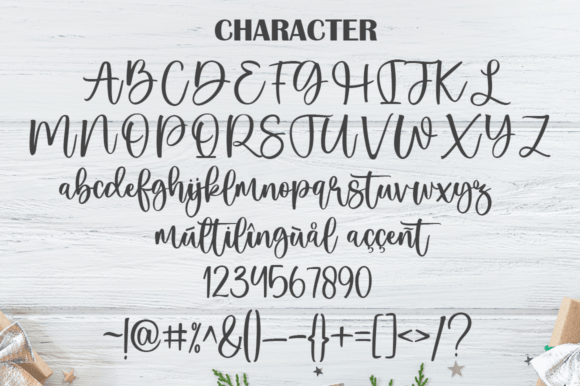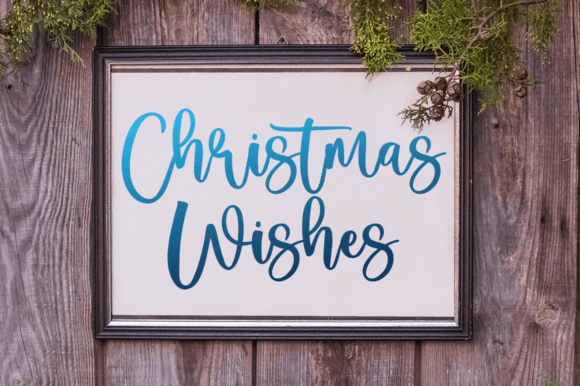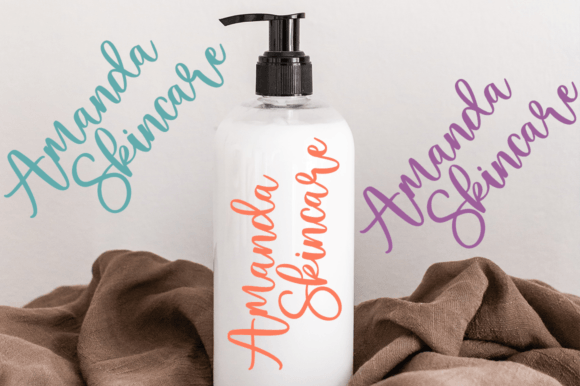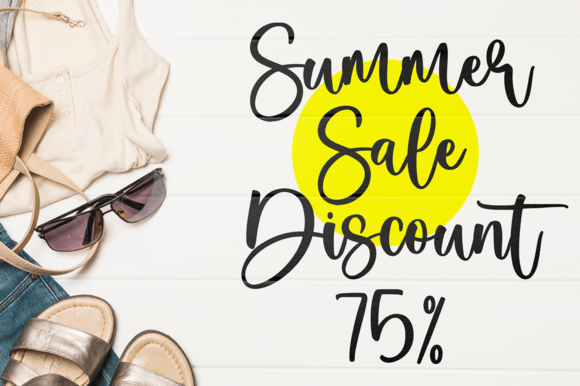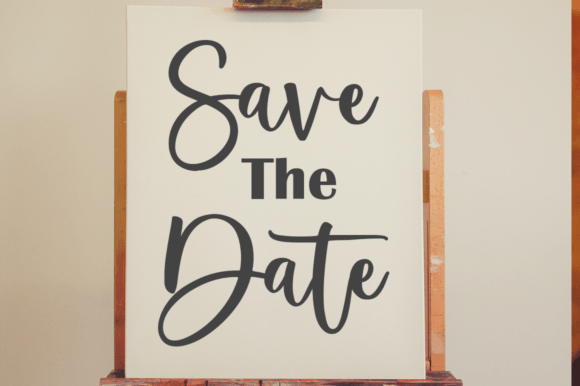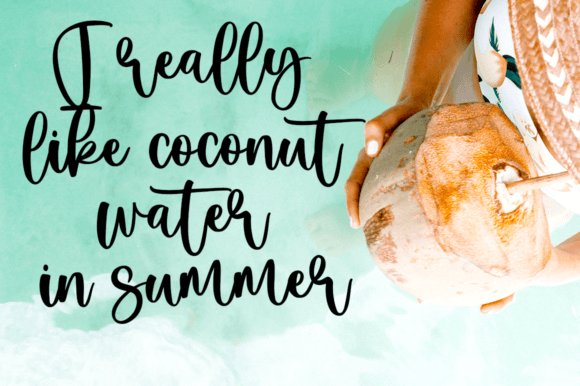
Introduction to Palm Bali Font Font
Fonts play a crucial role in design, and the Palm Bali Font font is a typeface that brings both character and versatility to any project. Whether you’re working on a branding project, a website, or a print design, the Palm Bali Font font offers a unique style that can elevate your work.
Palm Bali.
A very fun yet elegant script font with lots of energy, it lets you create beautiful handcrafted typography in an instant With extra curves & twists, Palm Bali is guaranteed to make your text stand out – perfect for logos, printed quotes, invitations, cards, product packaging, headers and anything else you can imagine.
Key Features of Palm Bali Font Font
Why Choose Palm Bali Font Font?
The Palm Bali Font font is more than just a typeface – it’s a design tool that helps you communicate your message with style and clarity. Its unique character set and versatile design make it suitable for a wide range of applications, from elegant invitations to bold headlines.
With its carefully crafted letterforms and balanced proportions, the Palm Bali Font font ensures readability and visual appeal across all mediums.
What makes Palm Bali Font font special?
The Palm Bali Font font stands out with its unique design, exceptional readability, and versatility across various design applications.